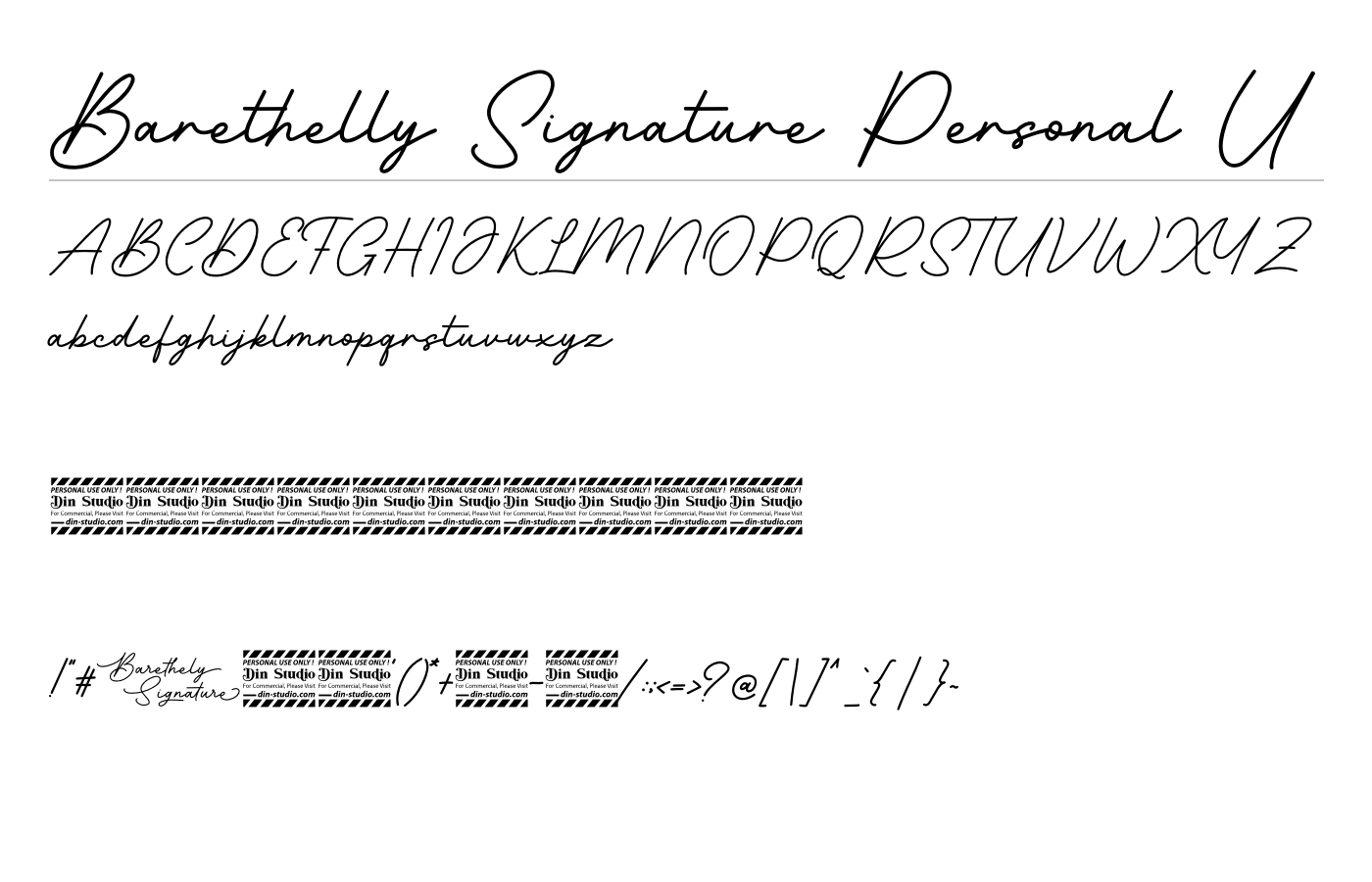
Barethelly Signature Personal U is a delicate and elegant script font that mimics natural handwriting with smooth, flowing lines and a light, airy feel. Its slender, slightly slanted letterforms and refined strokes make it perfect for personal branding, wedding invitations, and stylish logos where a touch of sophistication and warmth is desired. This font shines in creative projects that need a friendly yet polished handwritten look.
Barethelly Signature Personal U Font
About Barethelly Signature Personal U Font
| Font family | Barethelly Signature Personal U Font |